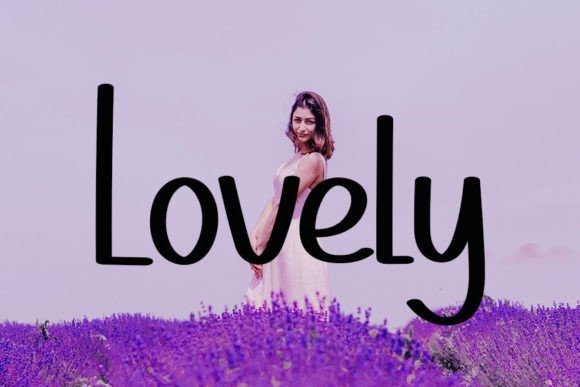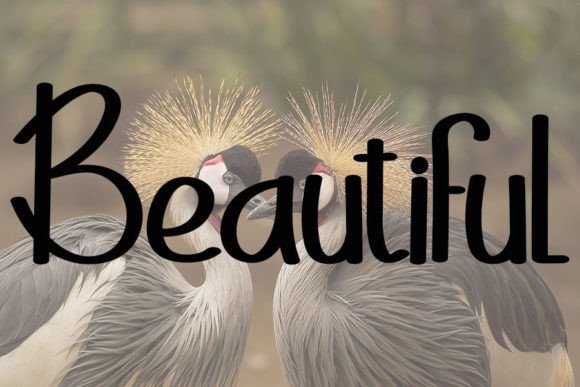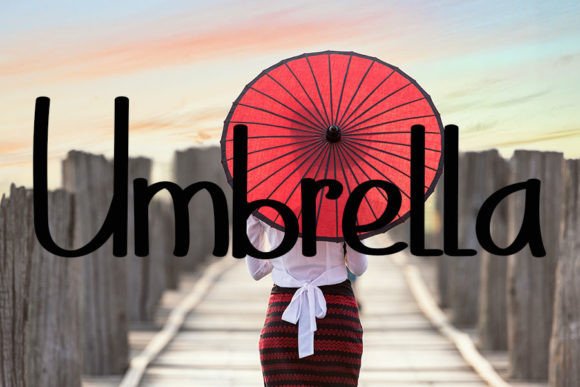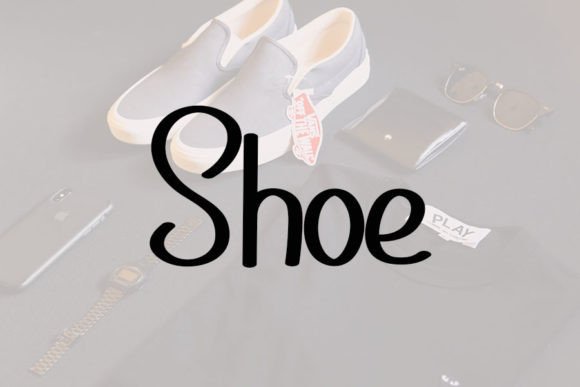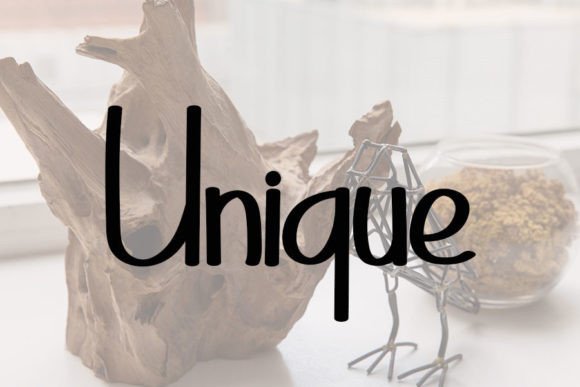
Elegant Font: Elevate Your Designs with Timeless Sophistication
Are you searching for a font that exudes refinement, poise, and elegance? Look no further than the Elegant Font, a stunning handwritten typeface that adds a touch of sophistication to any design project. With its incredibly distinct and timeless style, this beautiful font is sure to capture the hearts of designers and crafters alike.
The Essence of Elegance
As described, Elegant is a neat and beautiful handwritten font characterized by an elegant touch, making it perfect for a wide range of projects. Whether you’re designing a wedding invitation, a logo, or a branding campaign, this font is sure to impress. Its classic and refined aesthetic ensures that your designs will stand the test of time, remaining stylish and relevant for years to come.
Key Features of Elegant Font
- Handwritten with love: The Elegant Font boasts a beautiful, handwritten quality that adds a personal touch to your designs.
- Distinct and timeless style: Its unique and classic aesthetic ensures that your designs will be instantly recognizable and enduring.
- Neat and beautiful: The font’s clean lines and elegant curves make it perfect for a wide range of applications, from formal events to everyday branding.
- Elegant touch: The subtle nuances and flourishes in the font add a touch of sophistication and refinement to your designs.
The Elegant Font is an ideal choice for designers and crafters looking to elevate their projects with a touch of elegance. Whether you’re creating:
- Wedding invitations and stationery: Add a touch of romance and sophistication to your wedding designs.
- Logos and branding campaigns: Create a lasting impression with a font that exudes refinement and poise.
- Social media graphics and posts: Stand out on social media with elegant and eye-catching designs.
- DIY projects and crafts: Add a personal touch to your handmade creations with this beautiful font.
Tips for Using Elegant Font
To get the most out of the Elegant Font, consider the following tips:
- Pair with complementary fonts: Combine Elegant with clean and simple fonts to create a striking contrast.
- Experiment with colors and textures: Add depth and interest to your designs with subtle color variations and textures.
- Play with layout and composition: Use Elegant to create visually appealing layouts and compositions that draw the eye.
In conclusion, the Elegant Font is a beautiful and timeless typeface that adds a touch of sophistication to any design project. With its incredibly distinct and elegant style, this font is sure to capture the hearts of designers and crafters alike. Whether you’re creating wedding invitations, logos, or social media graphics, Elegant is the perfect choice for those seeking a refined and polished aesthetic. So why wait? Fall in love with the Elegant Font and elevate your designs to new heights of elegance and sophistication!